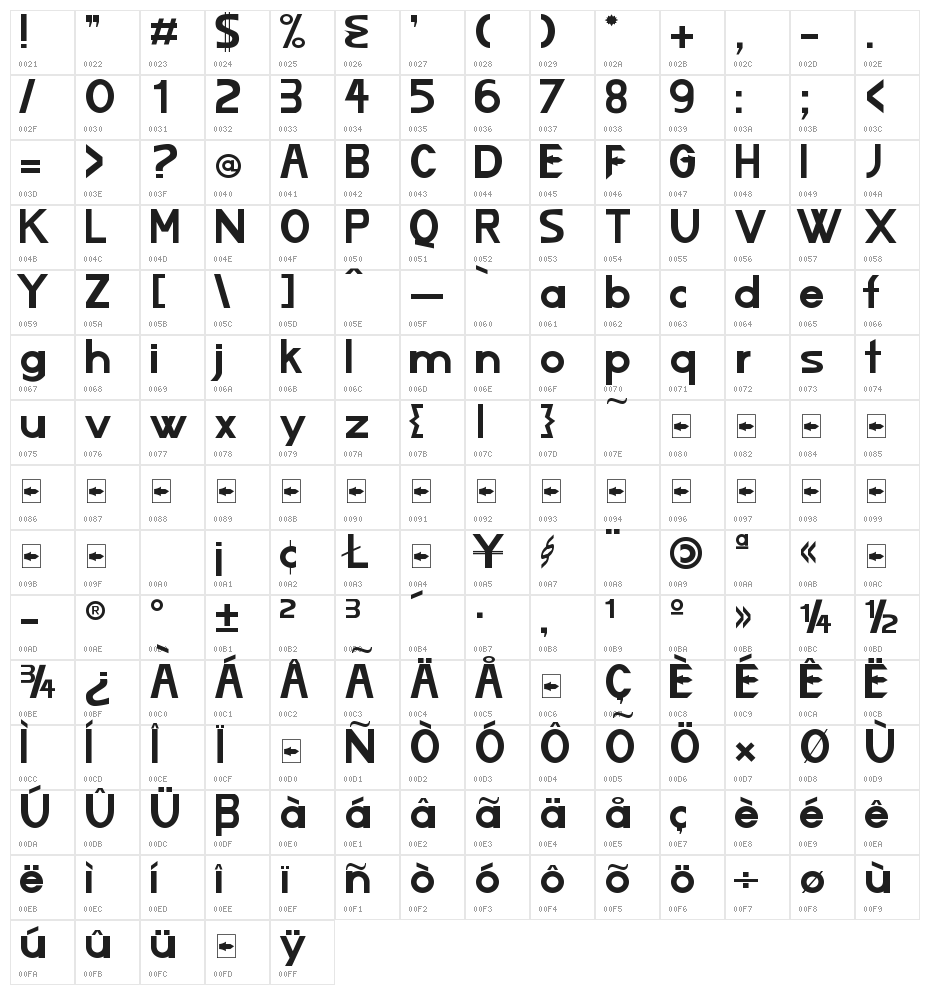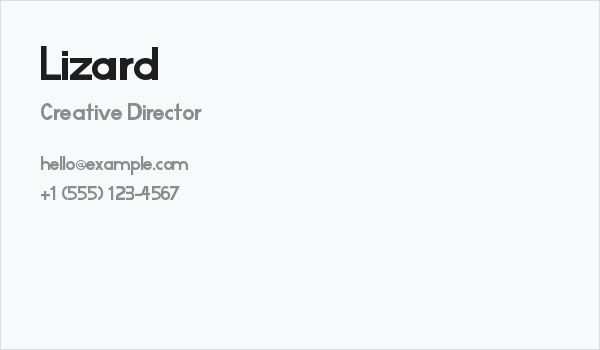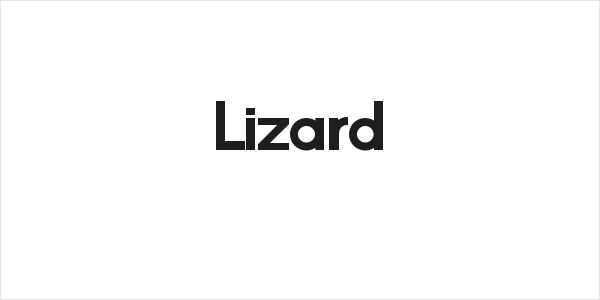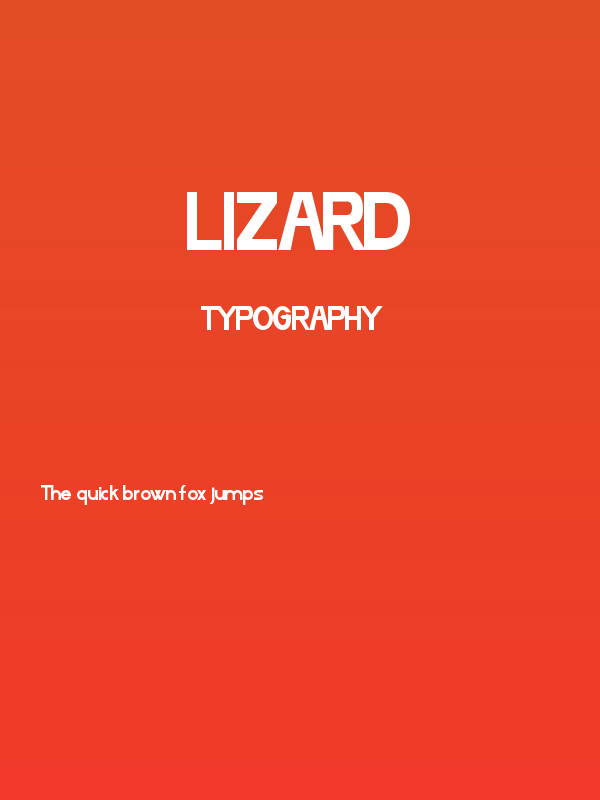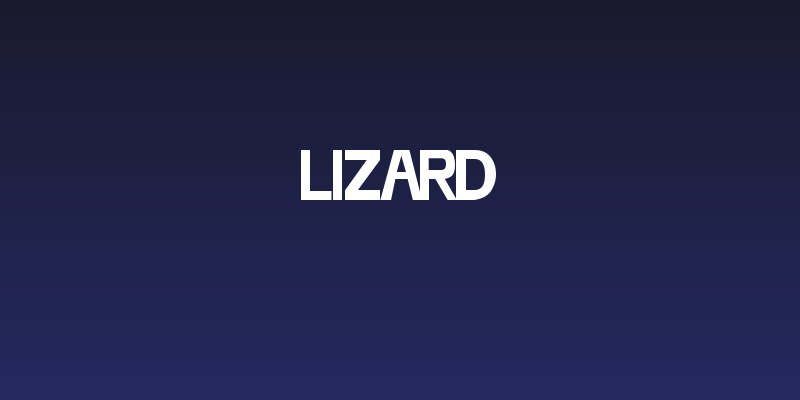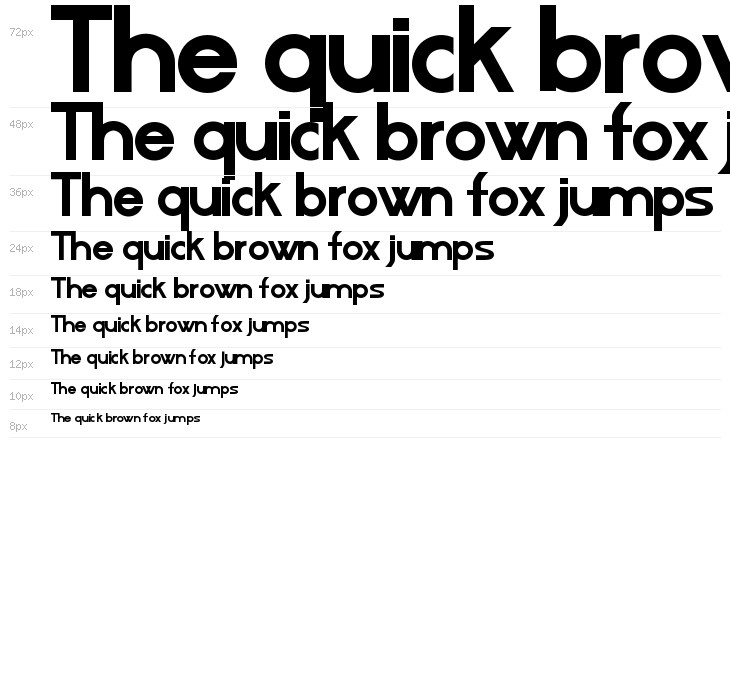
Lizard Font
Lizard Description
This font features a bold, geometric design with a modern and dynamic appearance. The uppercase letters are characterized by sharp angles and clean lines, while the lowercase letters maintain a consistent style with a slightly softer edge. The numerals are distinct and easily readable, complementing the overall aesthetic. Special characters are designed with the same boldness, ensuring uniformity across all glyphs. The font's strong presence makes it suitable for impactful designs, where clarity and style are paramount.
| Proposed Projects | Ideal for branding, advertising, posters, and headlines where a strong visual impact is desired. |